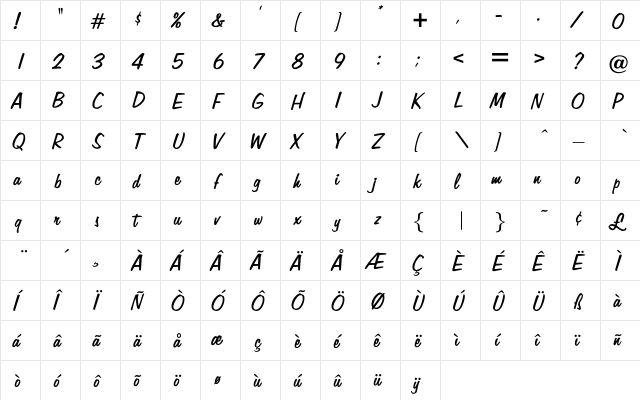
Jonathan Regular
Design Context for Jonathan Typeface
Jonathan takes a measured approach to typography — its balanced proportions and neutral character make it a reliable workhorse for both digital and print work.